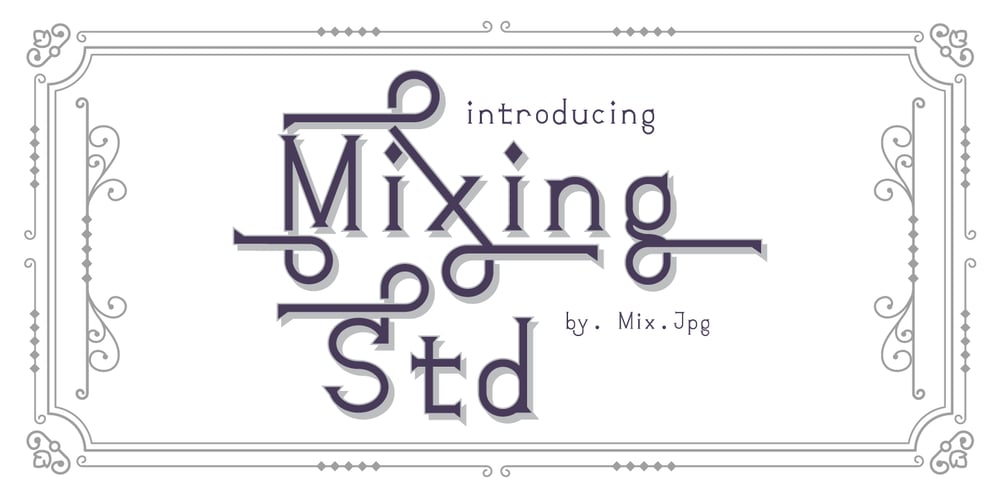
Mixink Std Font Family was designed by Mix Jpg and published by MIX.Jpg. Mixink Std contains 4 styles and family package options. Mixink Std is a serif font features amazing swashes. It has a vintage feel and look that makes it perfect for any retro and nostalgic project.